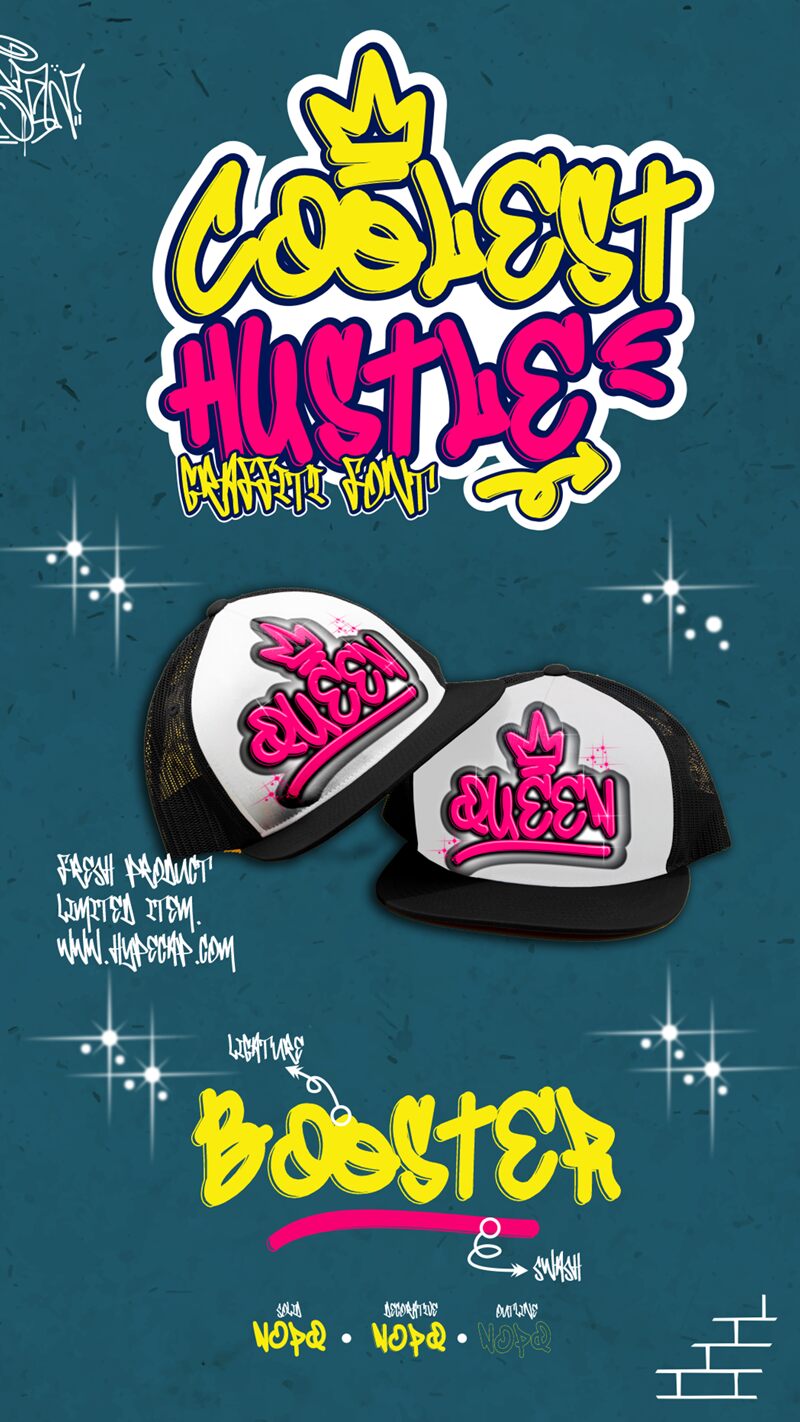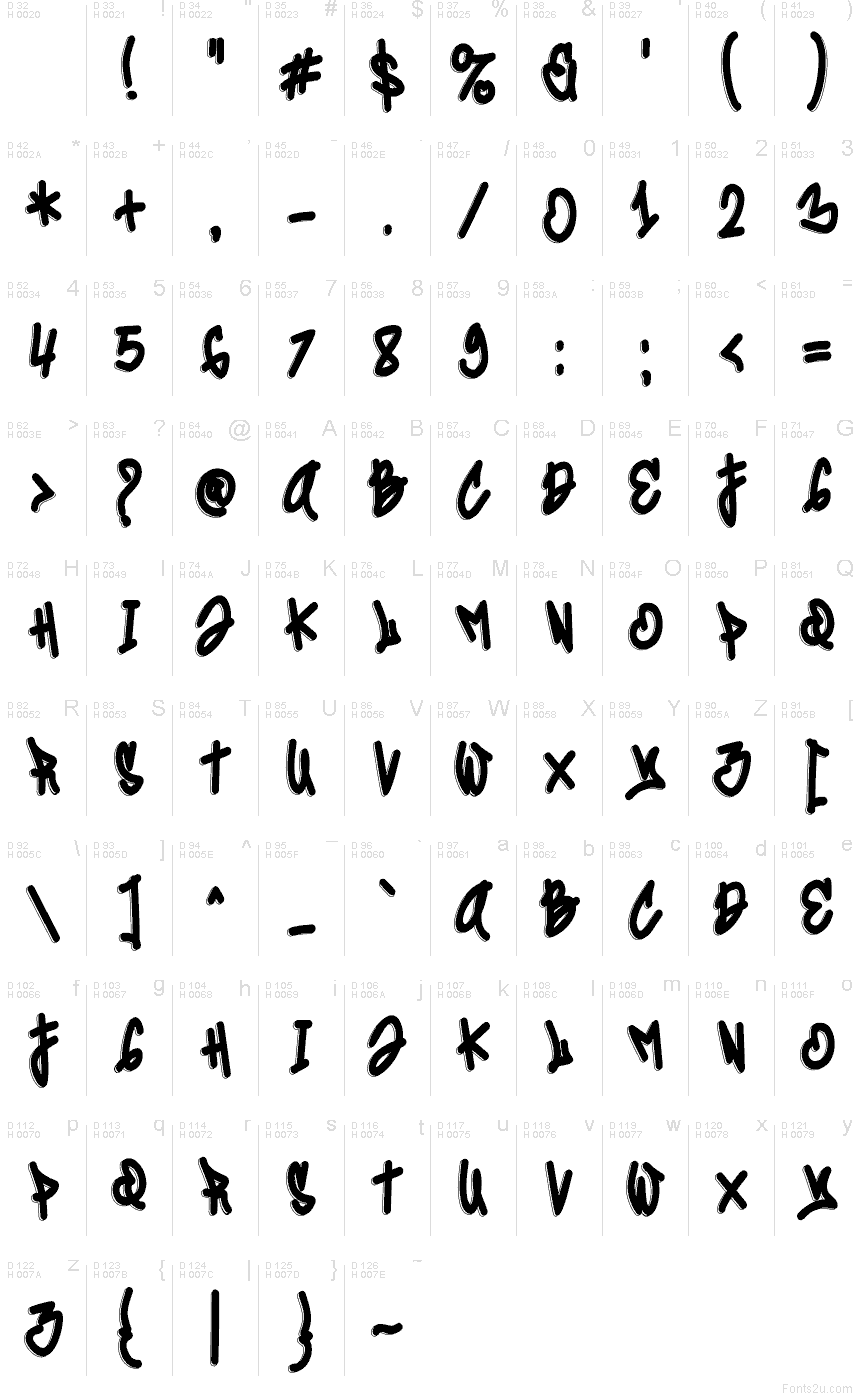
Coolest Hustle Decorative font by Muhammad Panji Ramdhani of Sipanji x Figuree comes in hot with a wet-brush, tag-style attitude that feels hand-thrown and slightly messy in the best way. From the Coolest Hustle family, it’s a free graffiti font, and the typeface keeps your words loud, bouncy, and street-smart without losing legibility.
Using Coolest Hustle Decorative works beautifully for skate and streetwear branding, hip-hop flyers, YouTube thumbnails, sticker packs, album/mixtape covers, café chalkboard promos, and bold social posts. Set it big so the inked texture can breathe, then pair it with a clean geometric sans for captions to keep the chaos controlled-this free font does the shouting while the sans does the details.